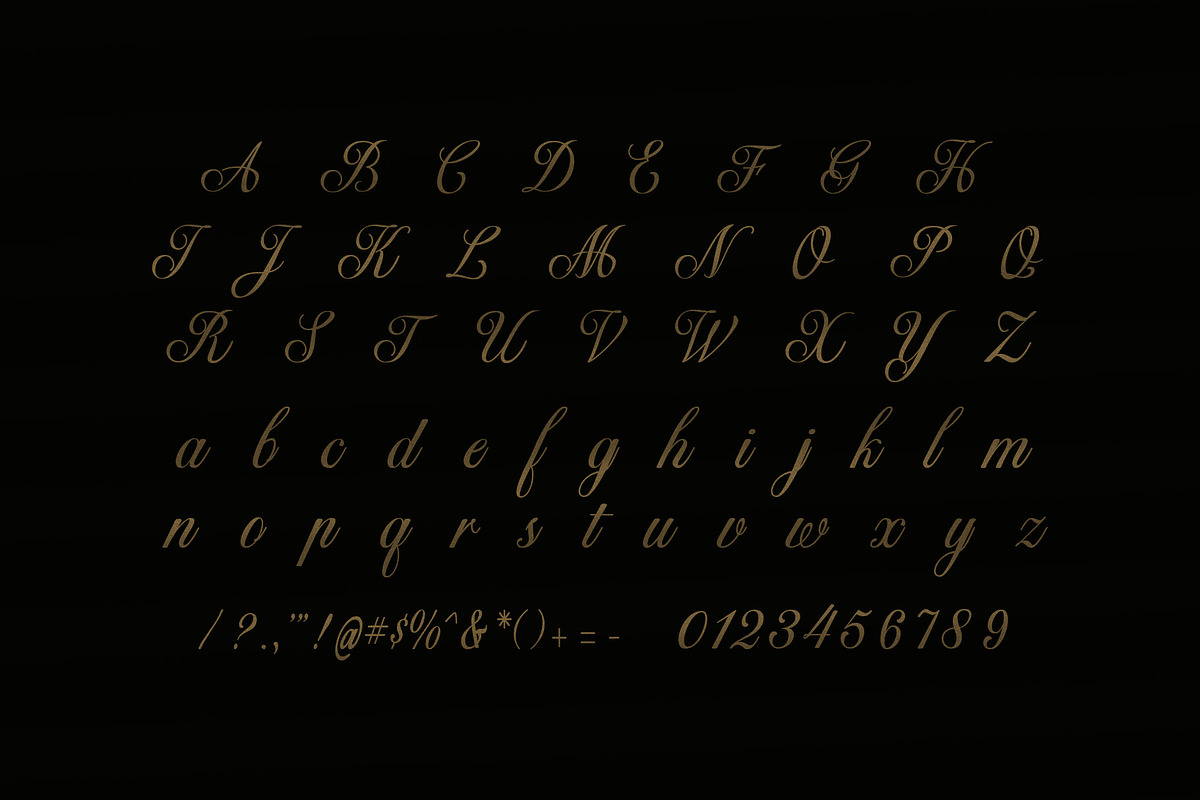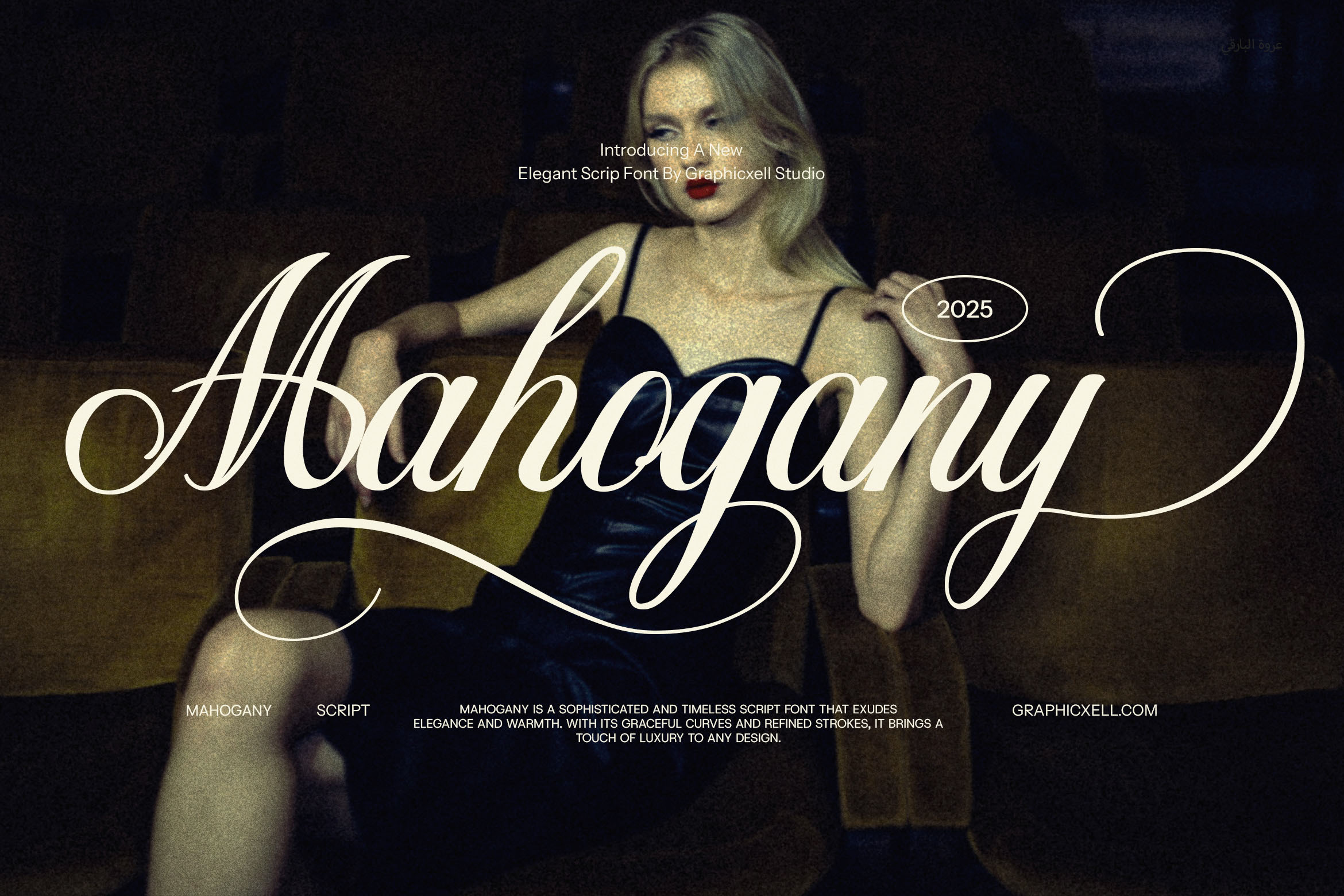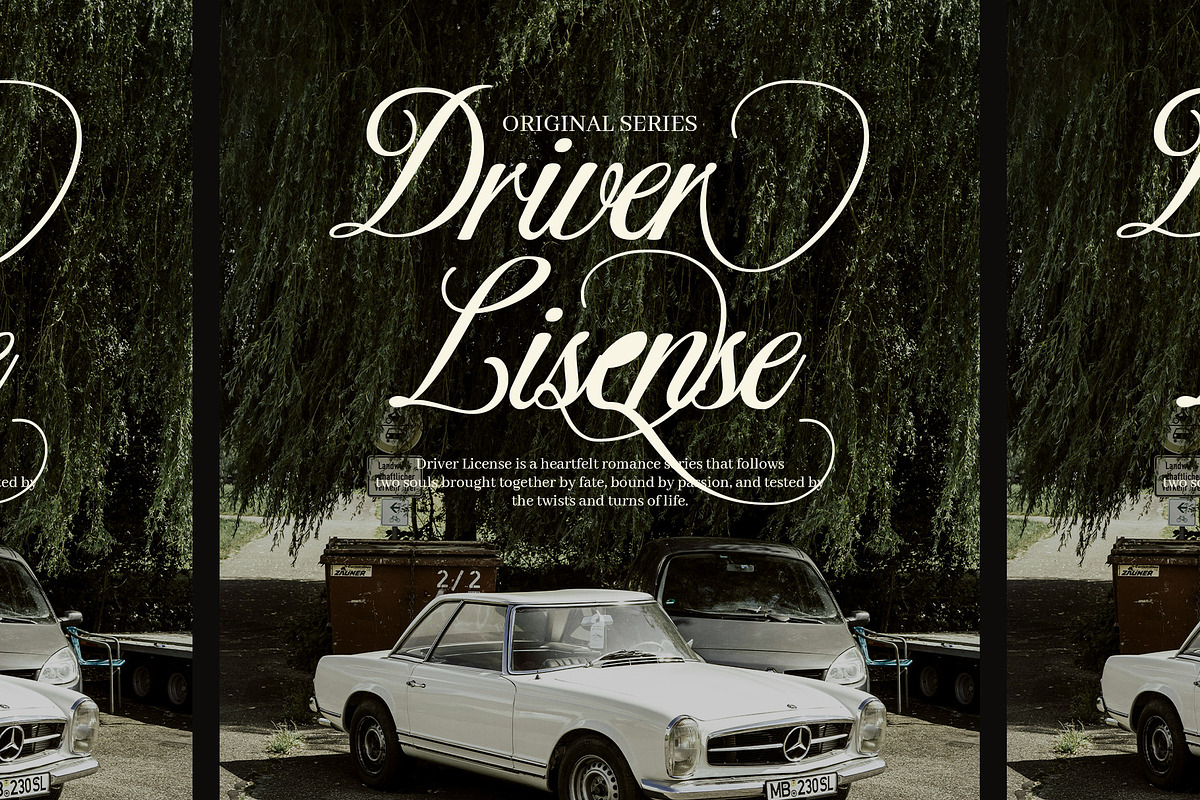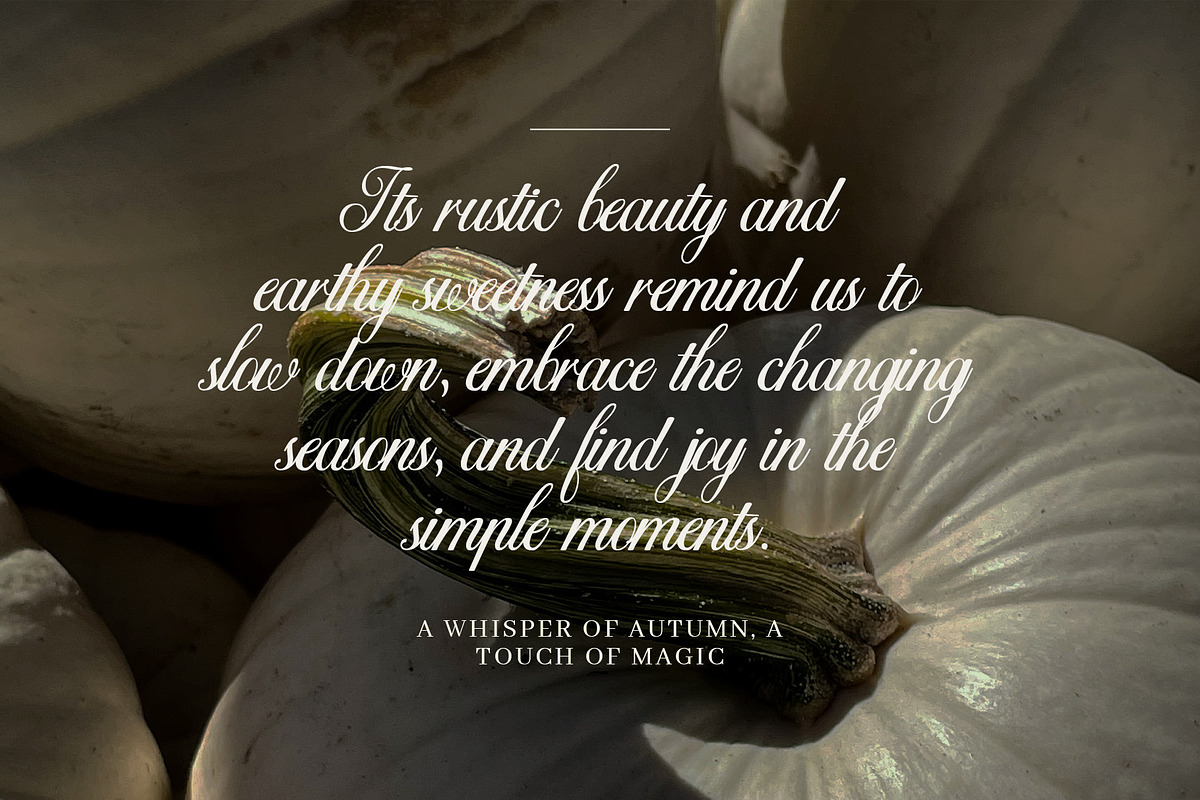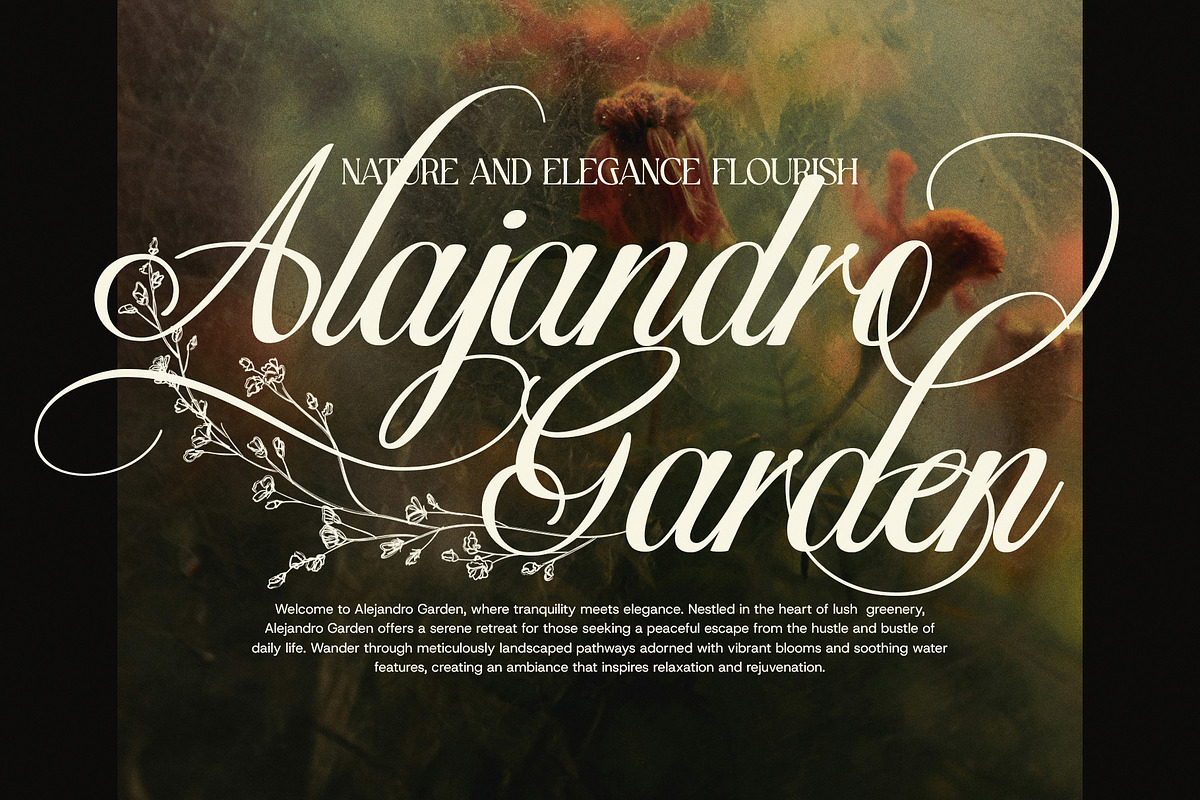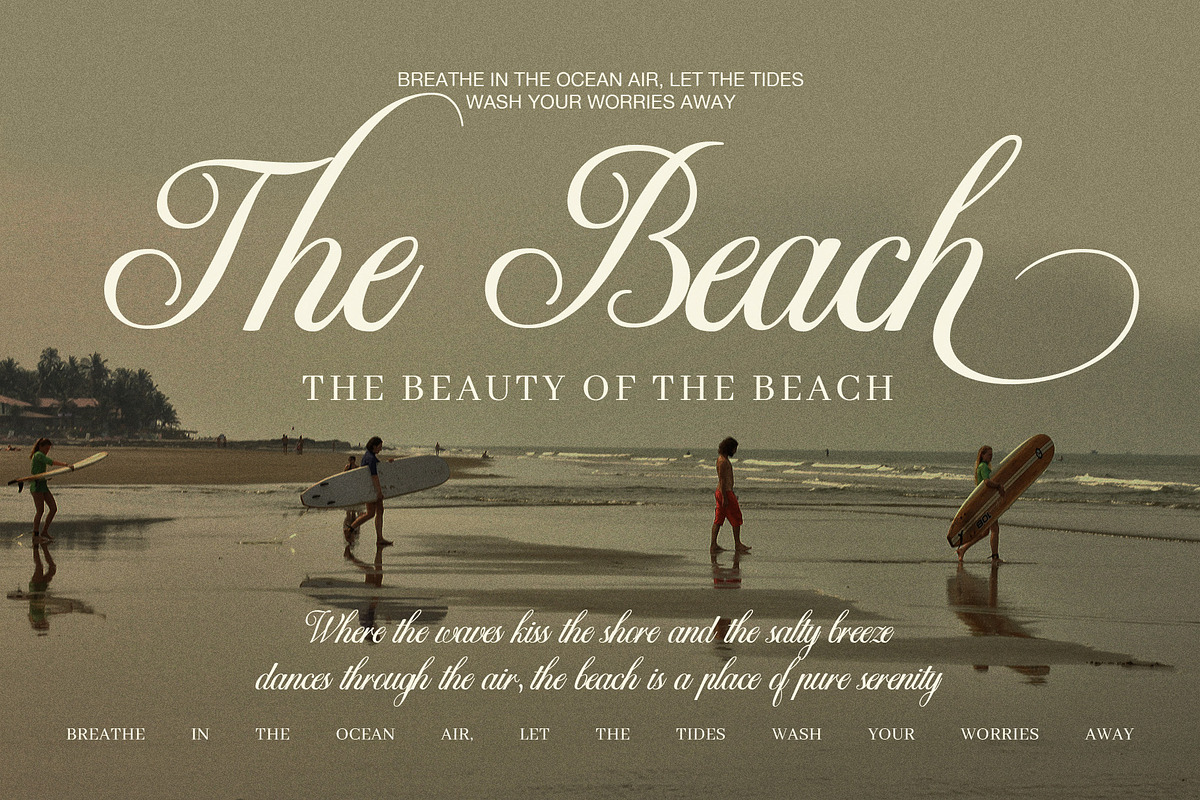
Mahogany Wedding Script Font
Mahogany Wedding Script Font is a romantic and luxurious script typeface designed to capture the grace of handwritten calligraphy with a modern twist. With its flowing strokes, elegant curves, and intricate calligraphy alternates, this font brings a timeless sophistication to any creative project. Perfectly suited for wedding themes, high-end branding, and elegant invitations, Mahogany Wedding adds a soft, personal touch that feels both classic and contemporary.
Crafted with attention to detail, Mahogany Wedding includes a wide selection of stylistic alternates and ligatures, allowing you to create unique, customized lettering for each design. Whether you're working on save-the-date cards, bridal shower invitations, luxury logos, or social media graphics, this script font delivers charm and professionalism in every curve.
From heartfelt wedding stationery to polished brand identities, Mahogany Wedding Script Font is your go-to typeface for adding elegance, romance, and class to any design. Let your work speak in graceful tones with this refined, calligraphic font that transforms words into visual art.